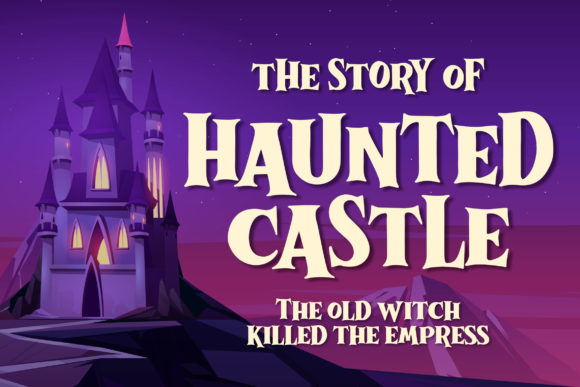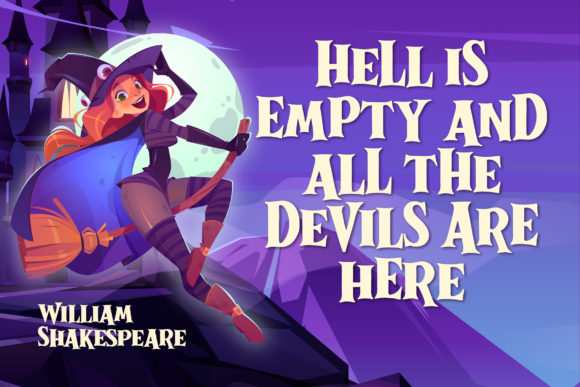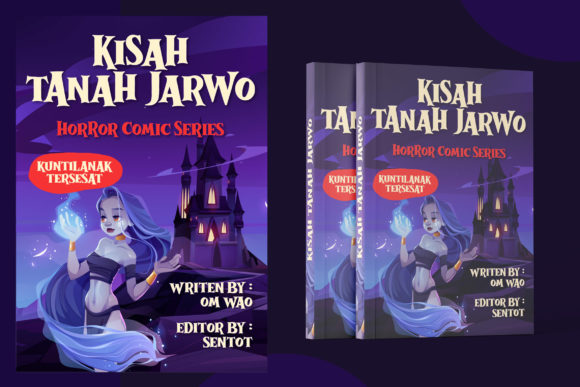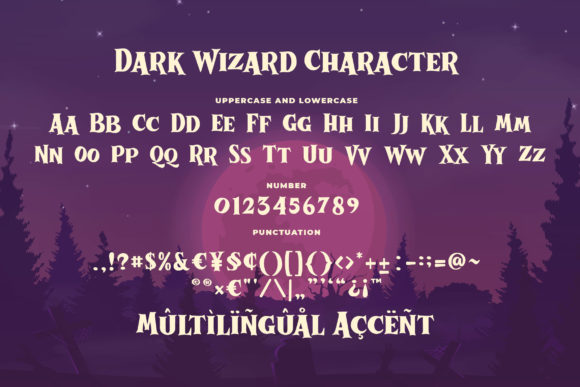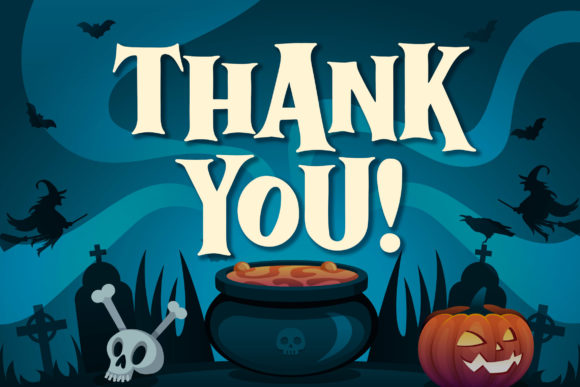
Unleash the Magic with Dark Wizard Font: A Spooky Display Font for Creatives
Are you a designer or crafter looking for a font that adds a touch of playfulness and spookiness to your projects? Look no further than the Dark Wizard Font, a quirky and imaginative display font inspired by the horror style typography. In this article, we’ll dive into the features and benefits of this font, and explore how it can elevate your designs to the next level.
The Inspiration Behind Dark Wizard Font
Dark Wizard Font is a creative take on traditional horror typography, with a playful twist. The font’s design is inspired by the spooky and eerie feel of Halloween themes, horror novel covers, and scary children’s books. However, it’s not just about being spooky – it’s also about being fun-loving and attractive. The font’s unique blend of playfulness and eeriness makes it perfect for designers and crafters who want to add a touch of magic to their projects.
Features of Dark Wizard Font
So, what makes Dark Wizard Font so special? Here are some of its key features:
- Spooky yet playful design: Dark Wizard Font has a unique blend of spooky and playful elements, making it perfect for Halloween themes, horror novel covers, and scary children’s books.
- Attention to aesthetics: The font is designed with great attention to aesthetics, ensuring that it looks great in any design.
- Versatile: Dark Wizard Font is suitable for a wide range of projects, including posters, packaging, merchandise, logotypes, and more.
Use Cases for Dark Wizard Font
So, what can you use Dark Wizard Font for? The possibilities are endless! Here are some ideas to get you started:
- Halloween themes: Use Dark Wizard Font to create spooky and fun Halloween-themed designs, such as posters, invitations, and decorations.
- Horror novel covers: Add a touch of eeriness to your horror novel covers with Dark Wizard Font.
- Scary children’s books: Create spooky yet fun illustrations for scary children’s books with Dark Wizard Font.
- Comics: Use Dark Wizard Font to add a touch of drama and excitement to your comic book designs.
- Posters and packaging: Use Dark Wizard Font to create eye-catching posters and packaging designs that stand out.
- Merchandise: Create fun and spooky merchandise, such as t-shirts, mugs, and tote bags, with Dark Wizard Font.
Why Choose Dark Wizard Font?
So, why should you choose Dark Wizard Font for your next project? Here are some reasons:
- Unique and creative: Dark Wizard Font is a unique and creative take on traditional horror typography.
- Attention-grabbing: The font is designed to grab attention and add a touch of excitement to your designs.
In conclusion, Dark Wizard Font is a spooky yet playful display font that’s perfect for designers and crafters who want to add a touch of magic to their projects. With its unique blend of playfulness and eeriness, attention to aesthetics, and versatility, Dark Wizard Font is the perfect choice for a wide range of projects. Whether you’re creating Halloween themes, horror novel covers, or scary children’s books, Dark Wizard Font is sure to unleash the magic in your designs.